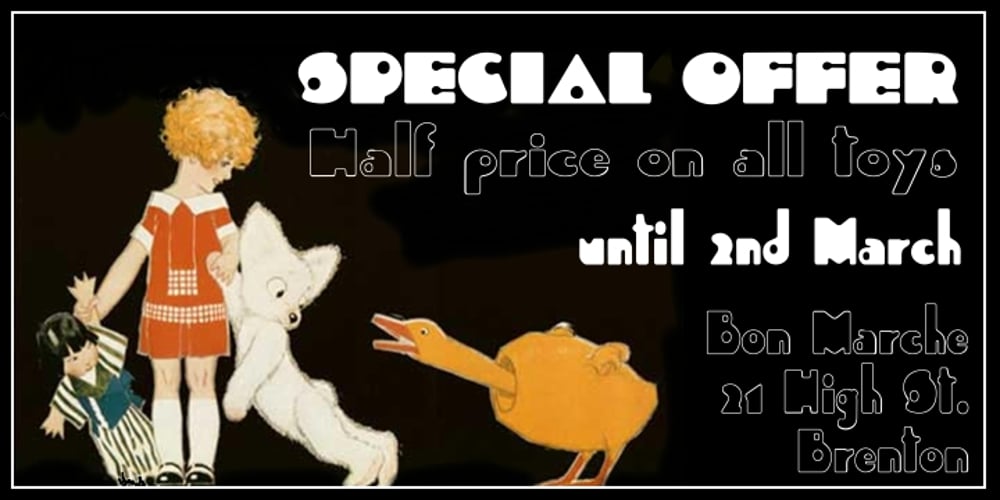
Dufour Font Family was designed by Anton Scholtz and published by Scholtz Fonts. Dufour contains 4 styles and family package options. Dufour was named in honor of an art deco font called “Independent” designed in the 1930s by Collette and Dufour. “Dufour” is influenced by the original font, however, there are substantial differences: instead of small caps, a true lower case was created, the upper case character proportions and shapes have been greatly modified, and all missing characters have been created to make a truly modern font which nevertheless has all of the panache of the original. A related font is Collette, designed by Anton Scholtz, however, Dufour has a softer feel that is more true to the original art deco period. Dufour comes in four styles: Dufour Regular, Dufour Regular Outline, Dufour Condensed, and Dufour Condensed Outline. The font has been carefully kerned and best results are obtained if kerning is switched on. (All-caps passages work well.) It is best used to create a retro feel and in headings, subheads and in short passages of text. Very effective in marketing for products for children.